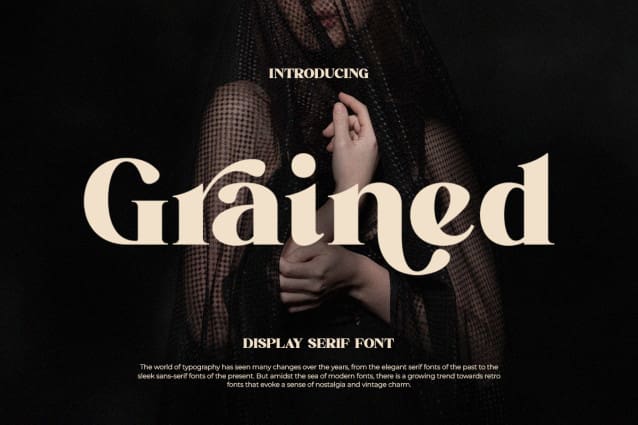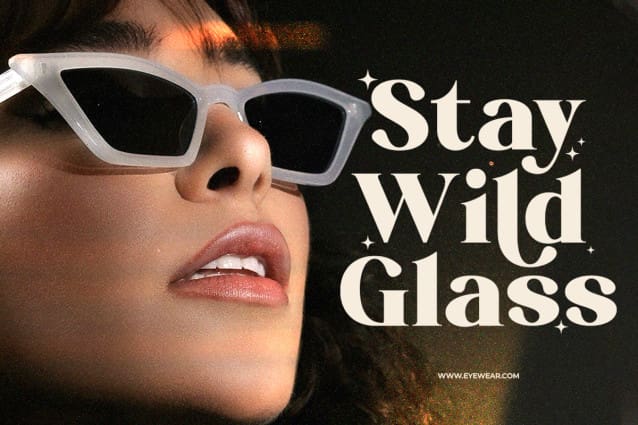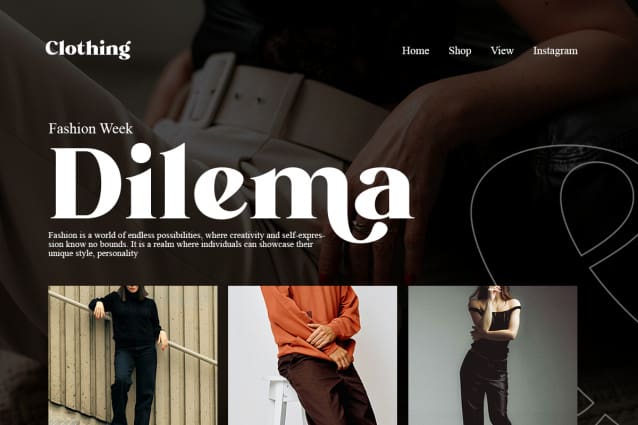
Grained Font
Grained Font – Display Serif Font! This font isn’t just about style—it’s about making your designs pop with elegance. With its sleek alternates and graceful ligatures, Grained is perfect for all your graphic design needs. Whether you’re crafting a logo, designing a poster, or creating a stunning website, this font delivers.